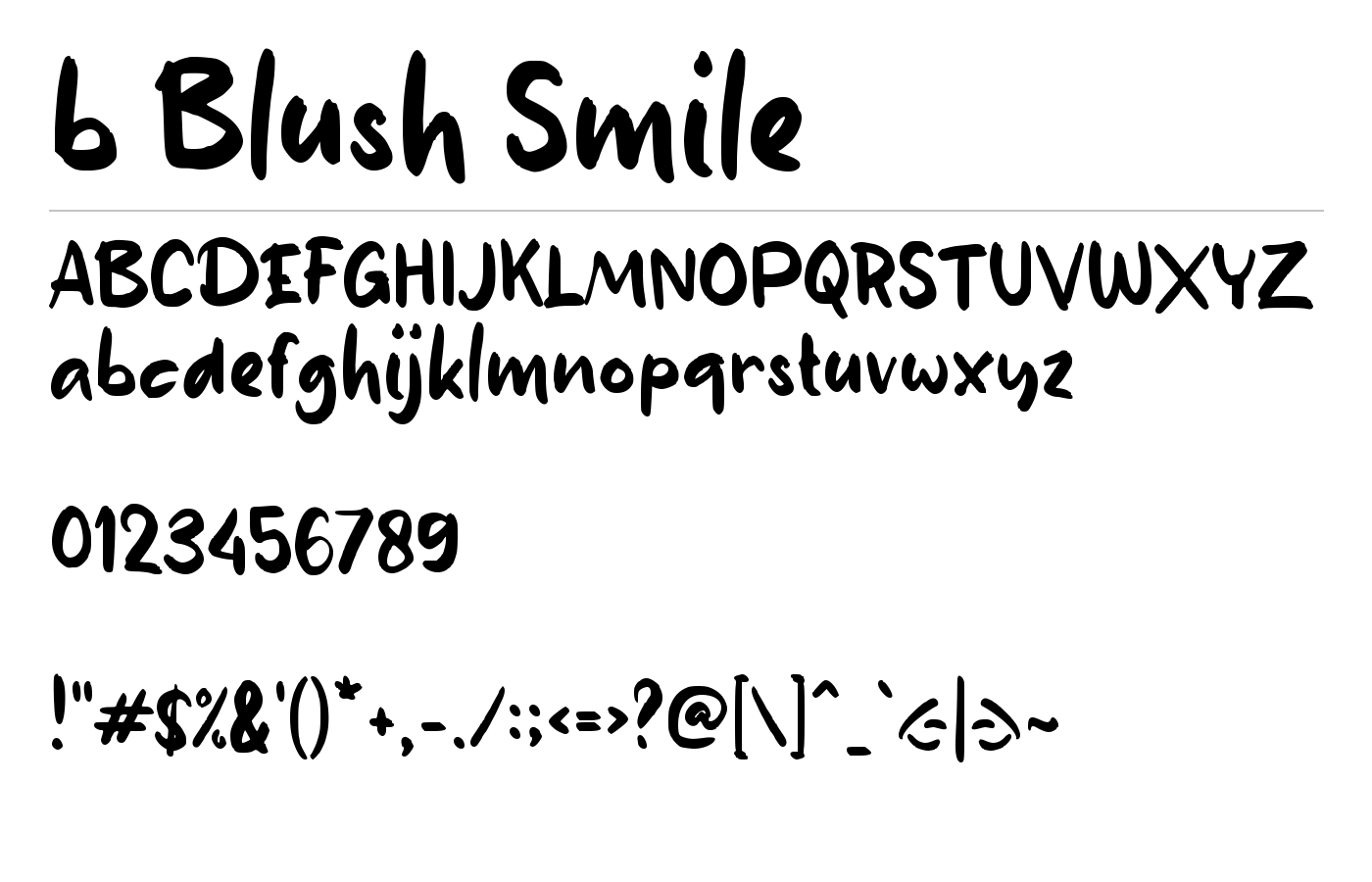
b Blush Smile is a playful and casual handwritten sans serif font that features irregular strokes and a lively, organic feel. Its medium weight and the slightly condensed, uneven letterforms give it a friendly and approachable personality, making it perfect for informal designs, children’s products, greeting cards, and creative branding where warmth and authenticity are key. This font works well in headlines, logos, and packaging that seek to convey a lighthearted, fun, and personal touch.
b Blush Smile Font
About b Blush Smile Font
| Font family | b Blush Smile Font |